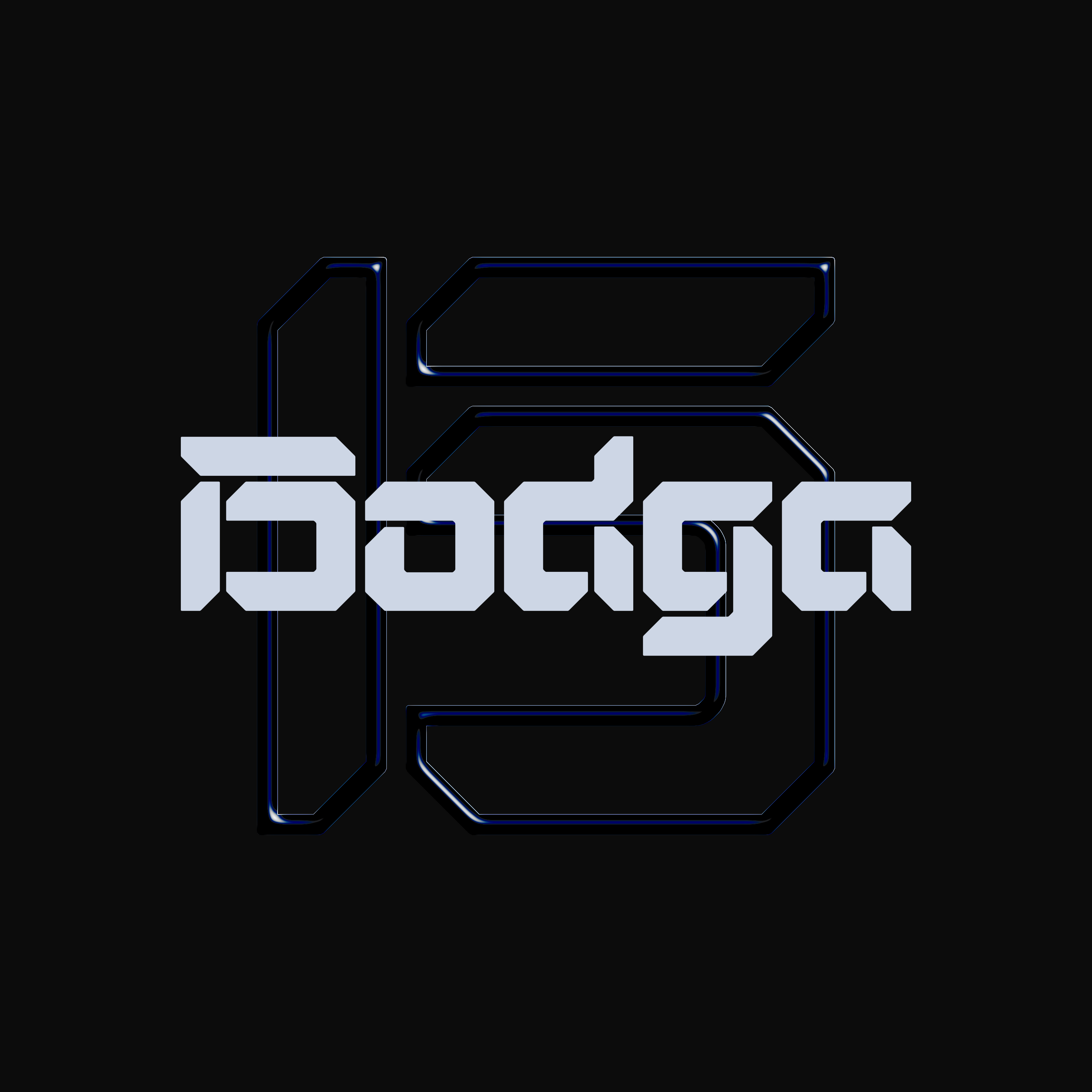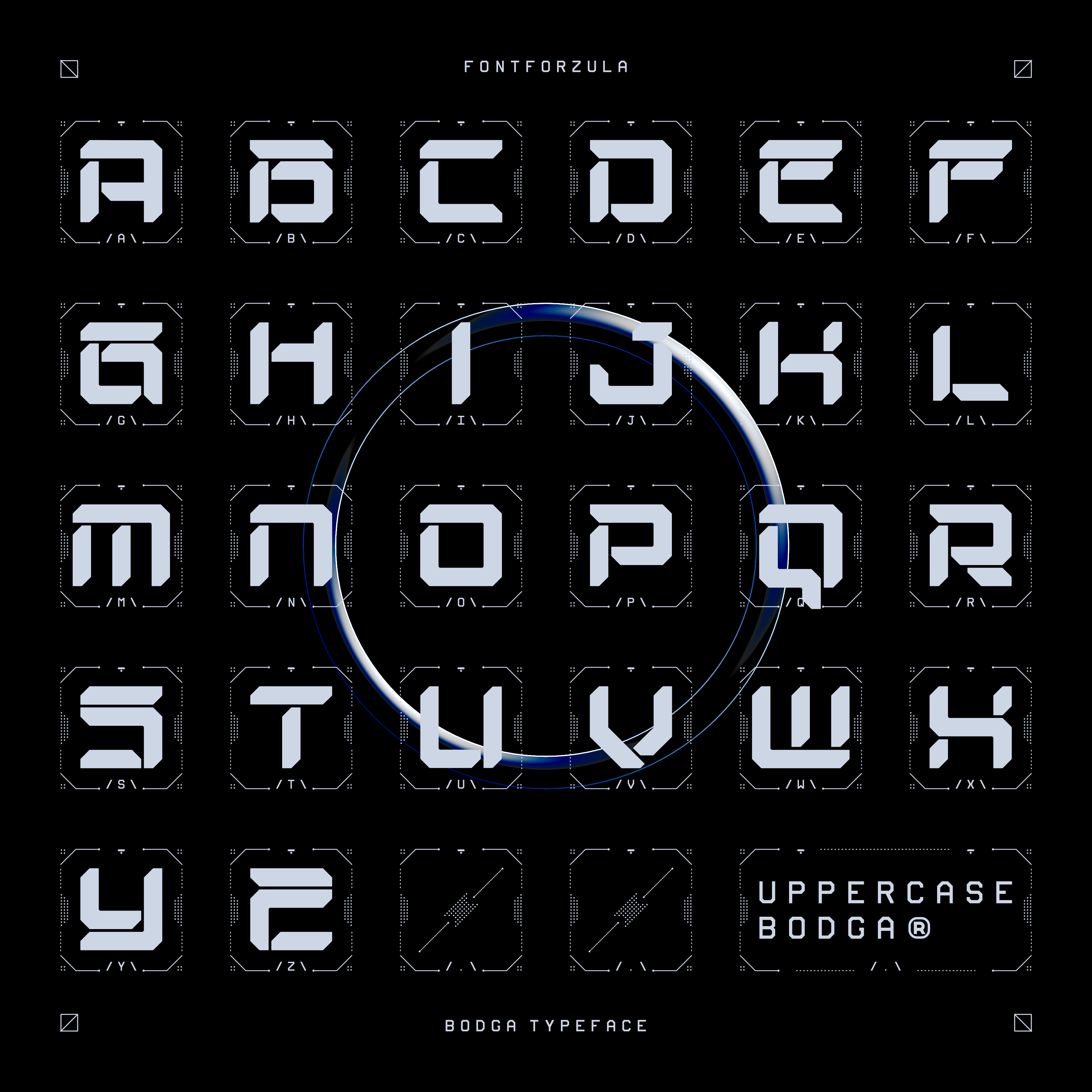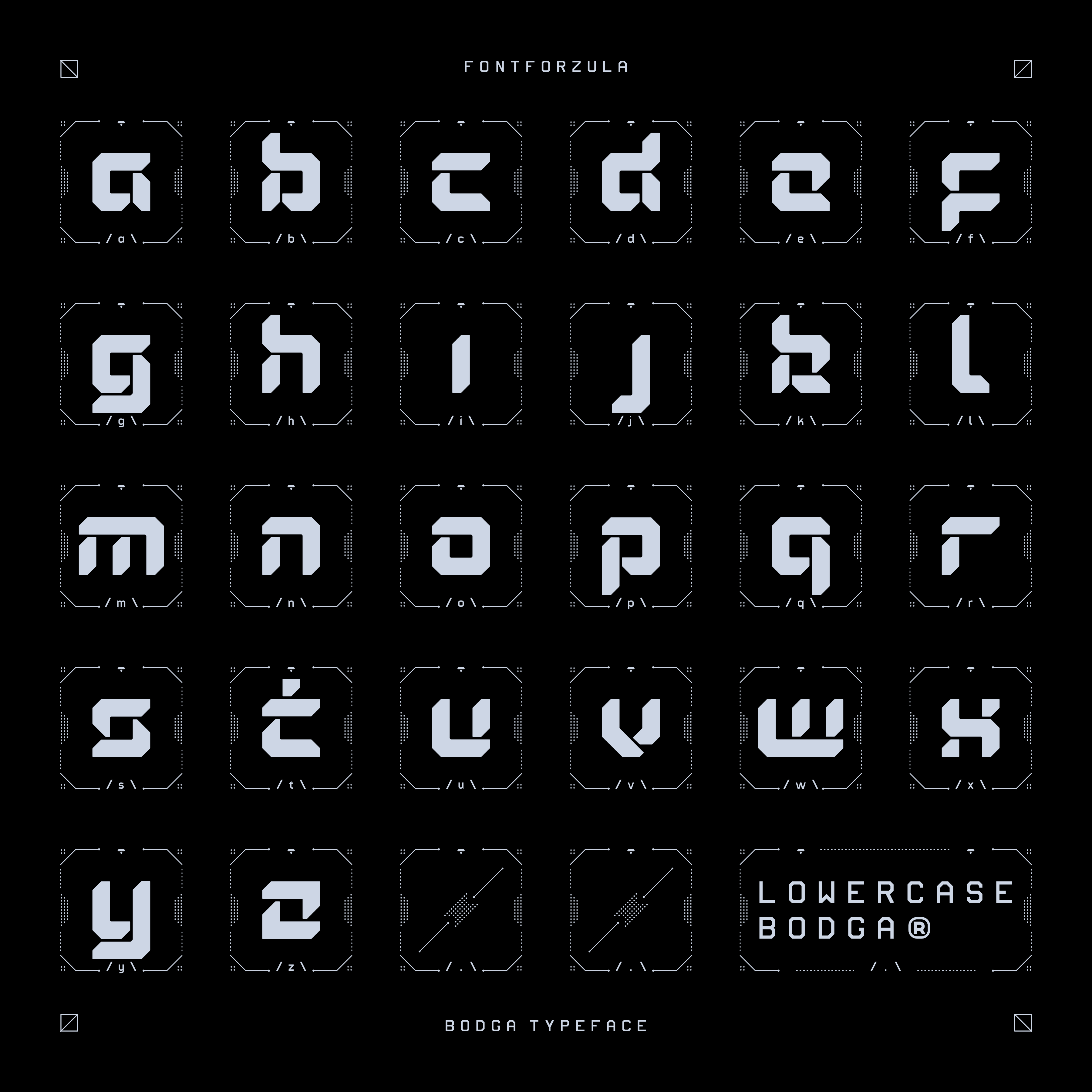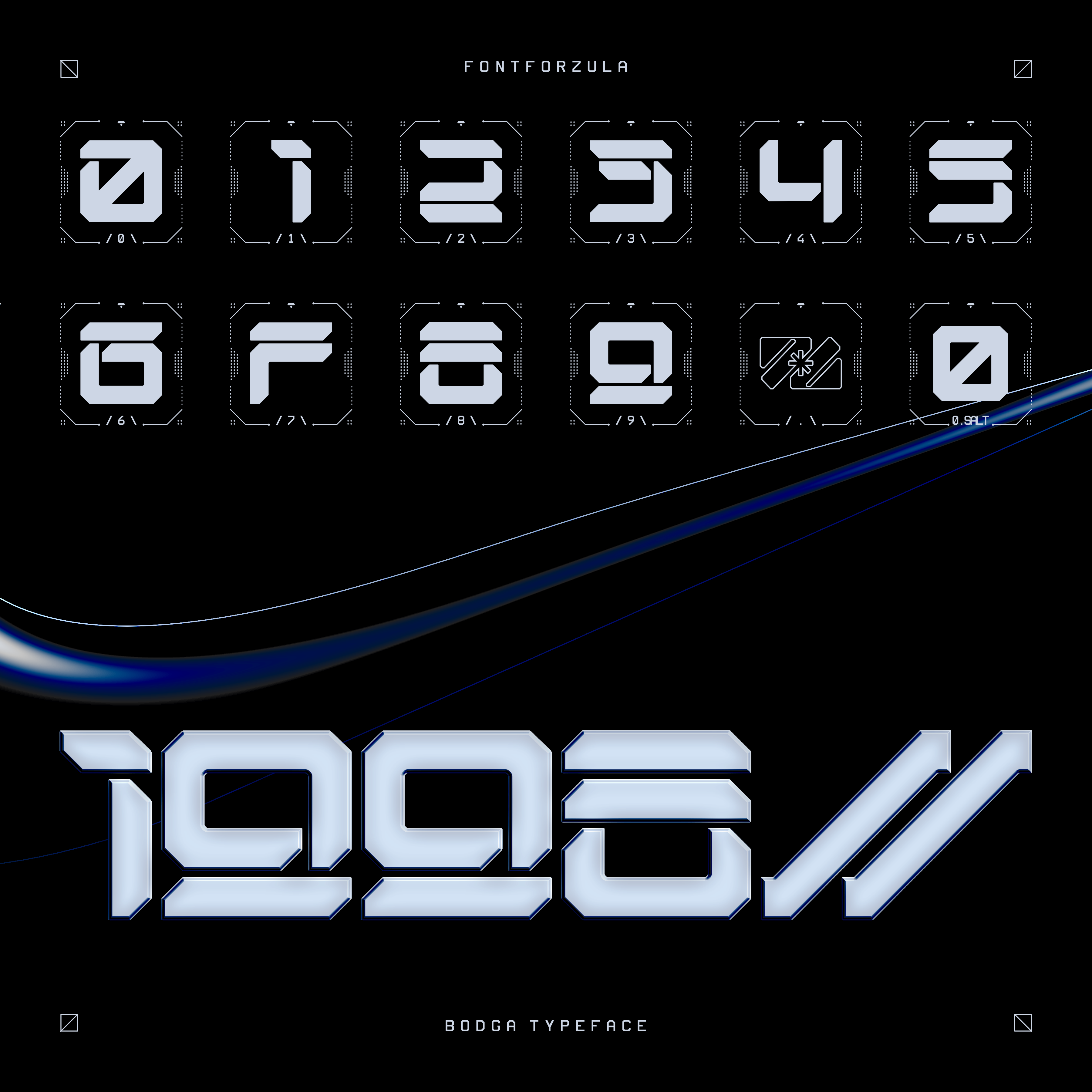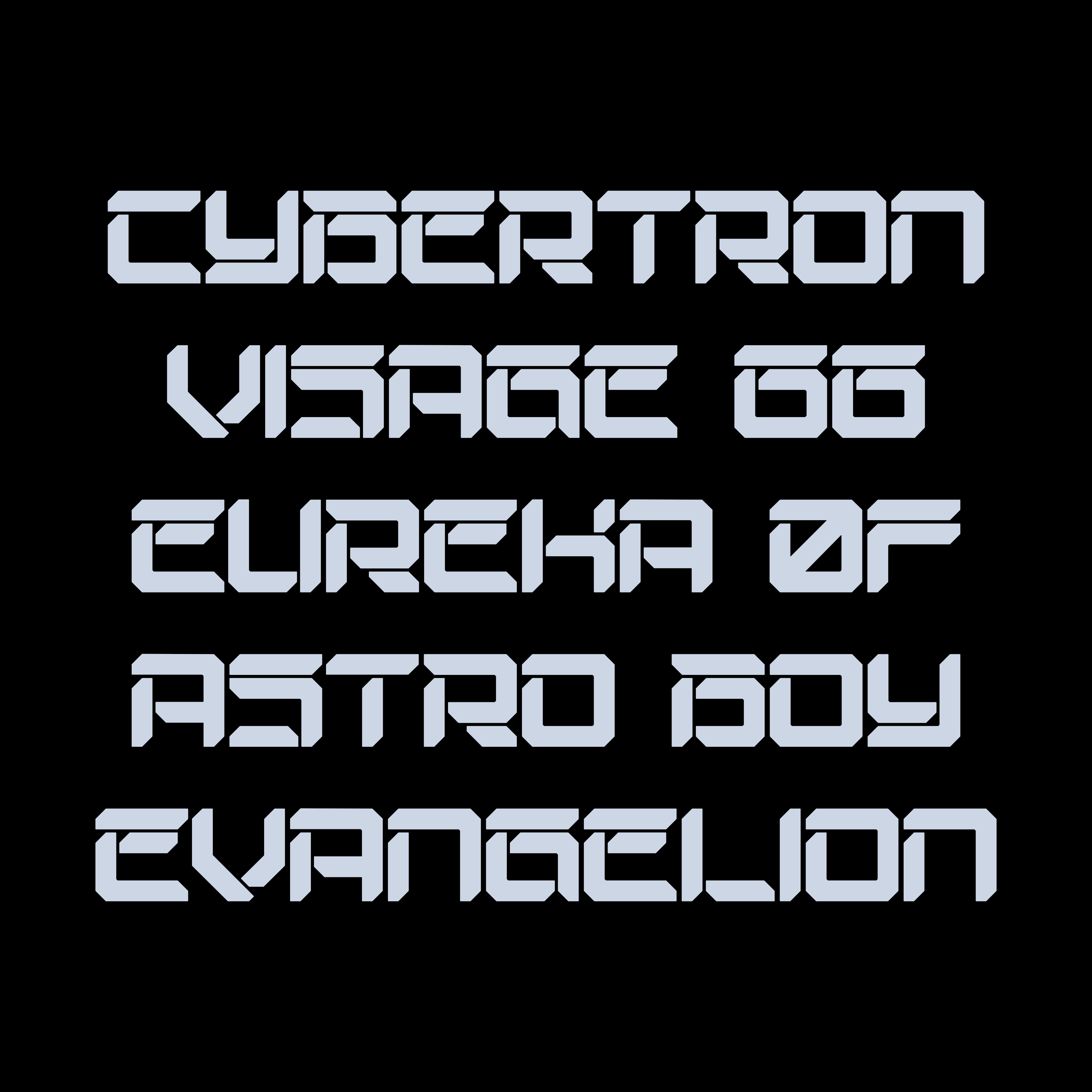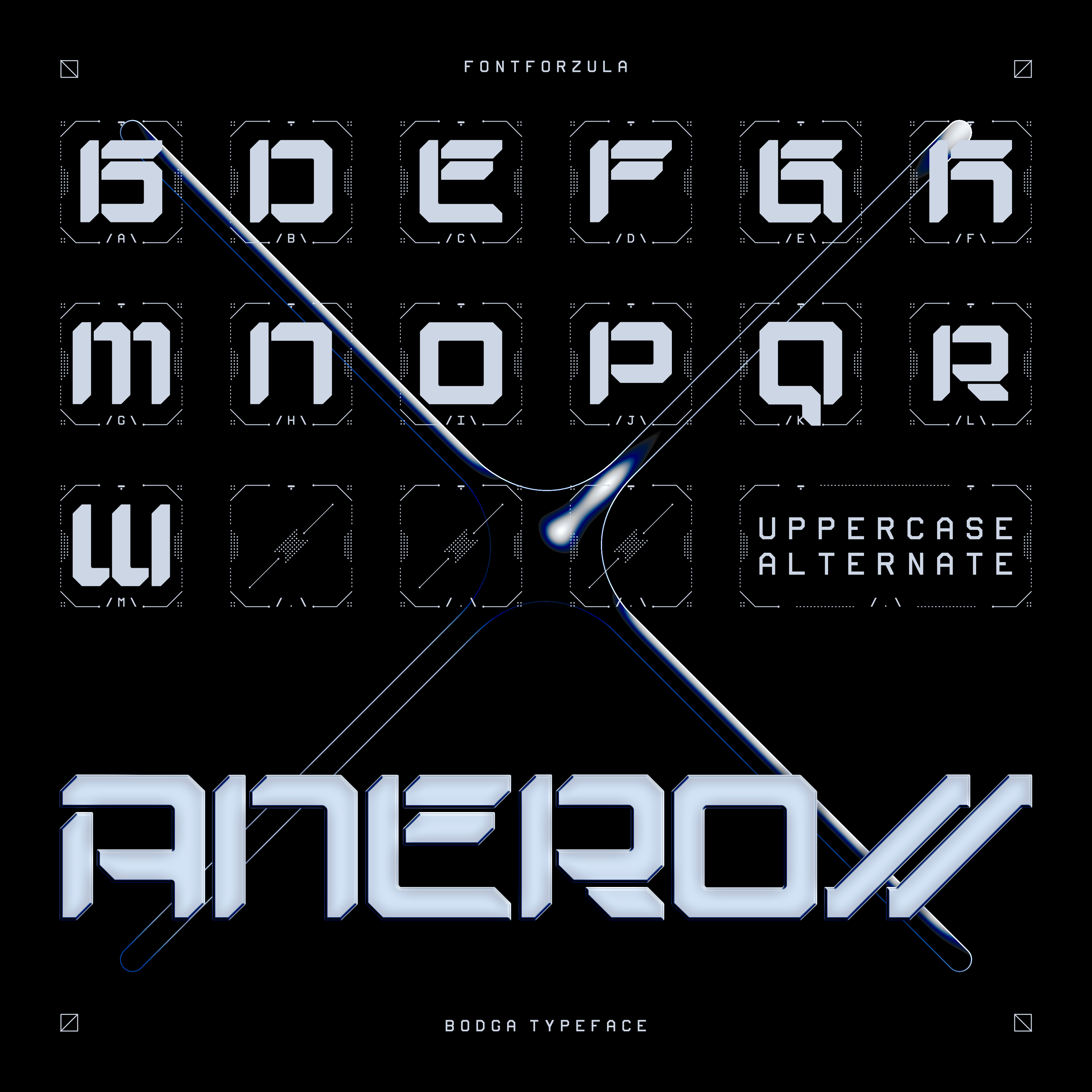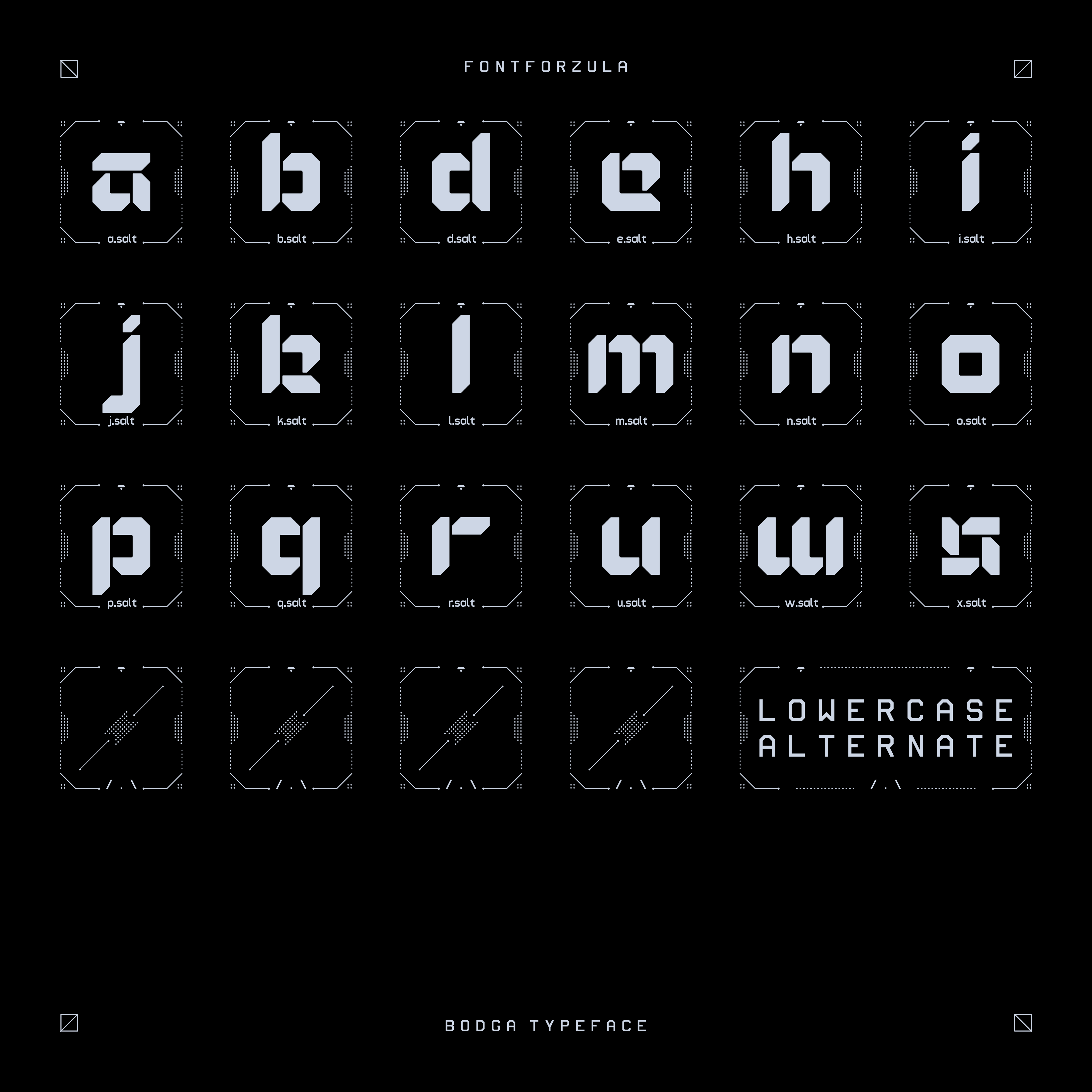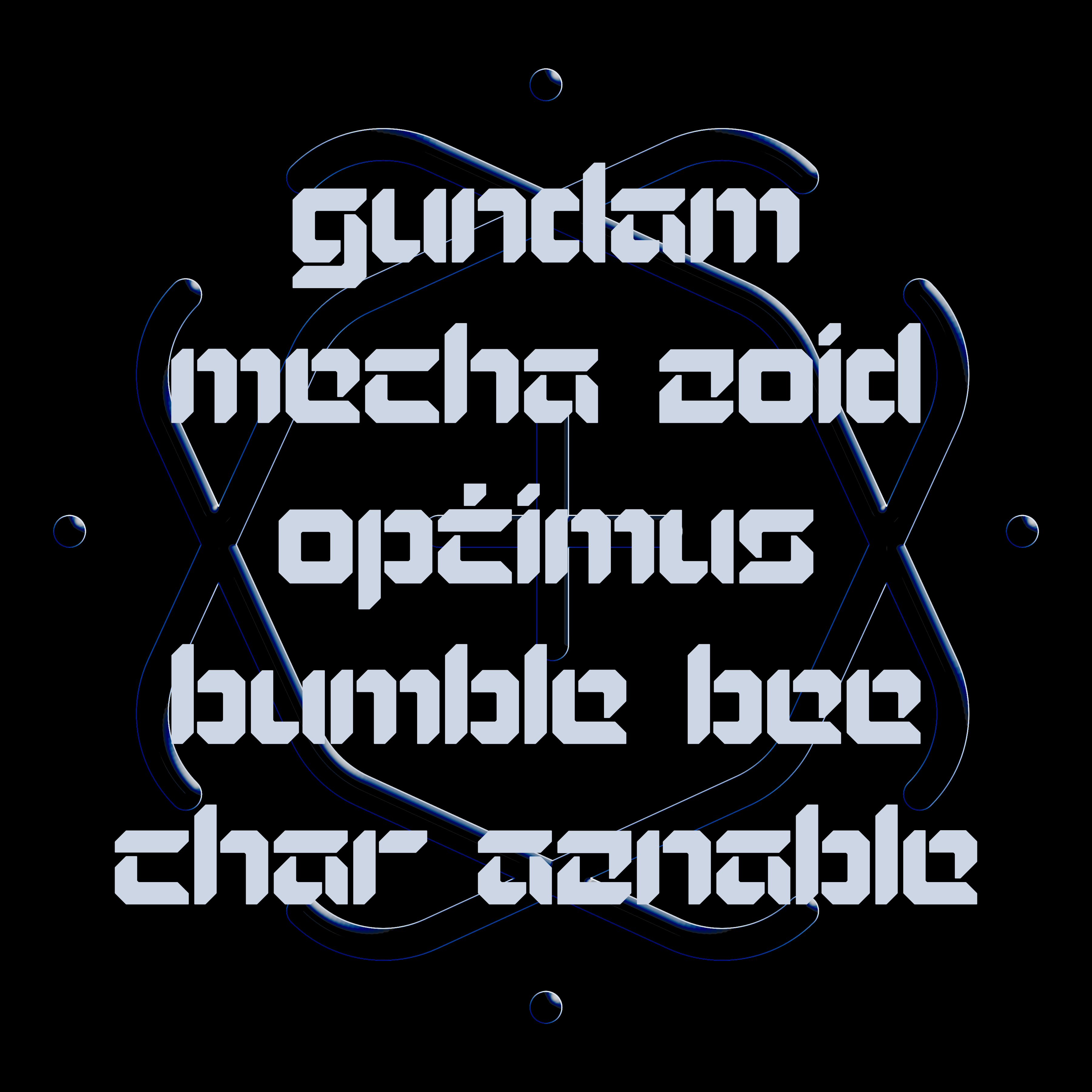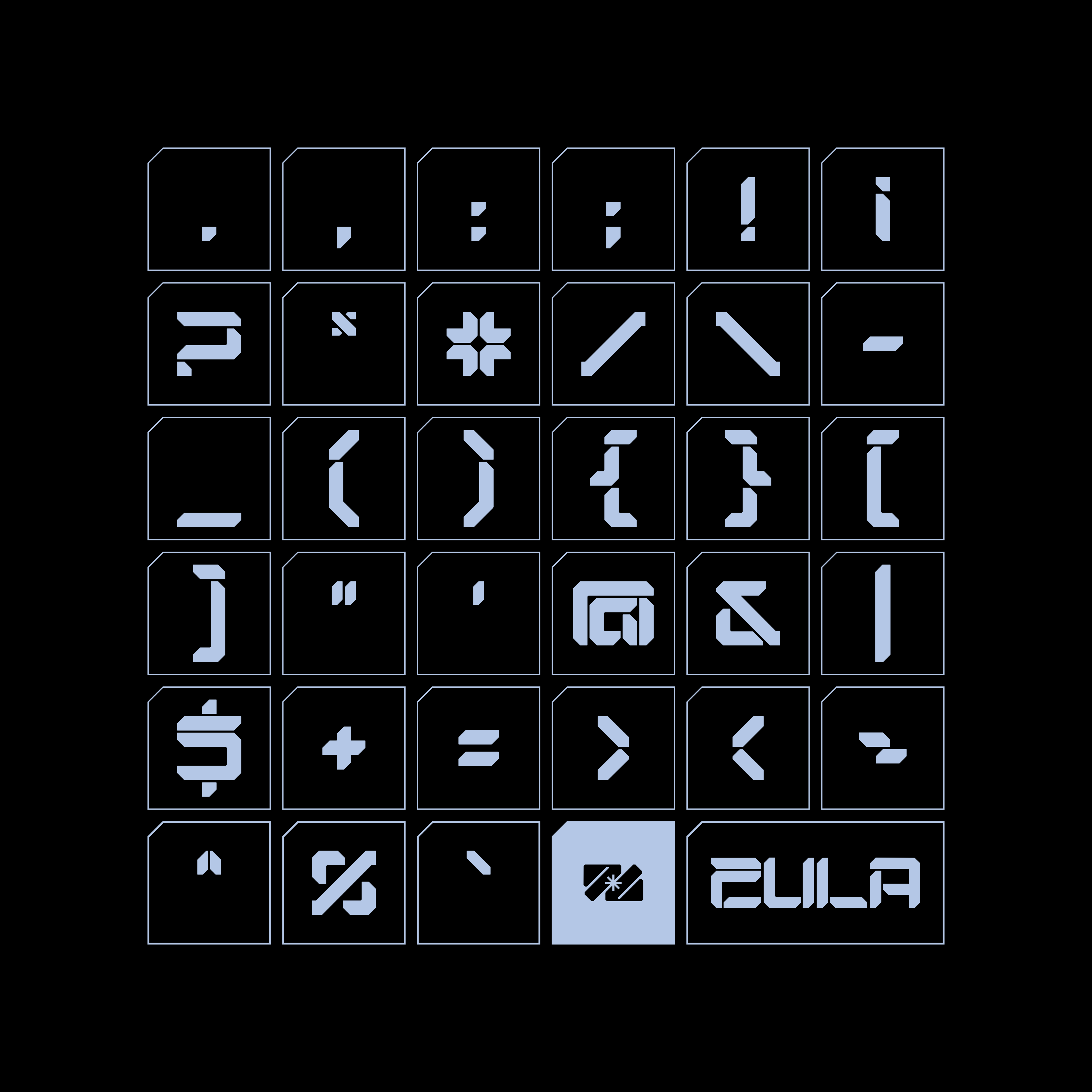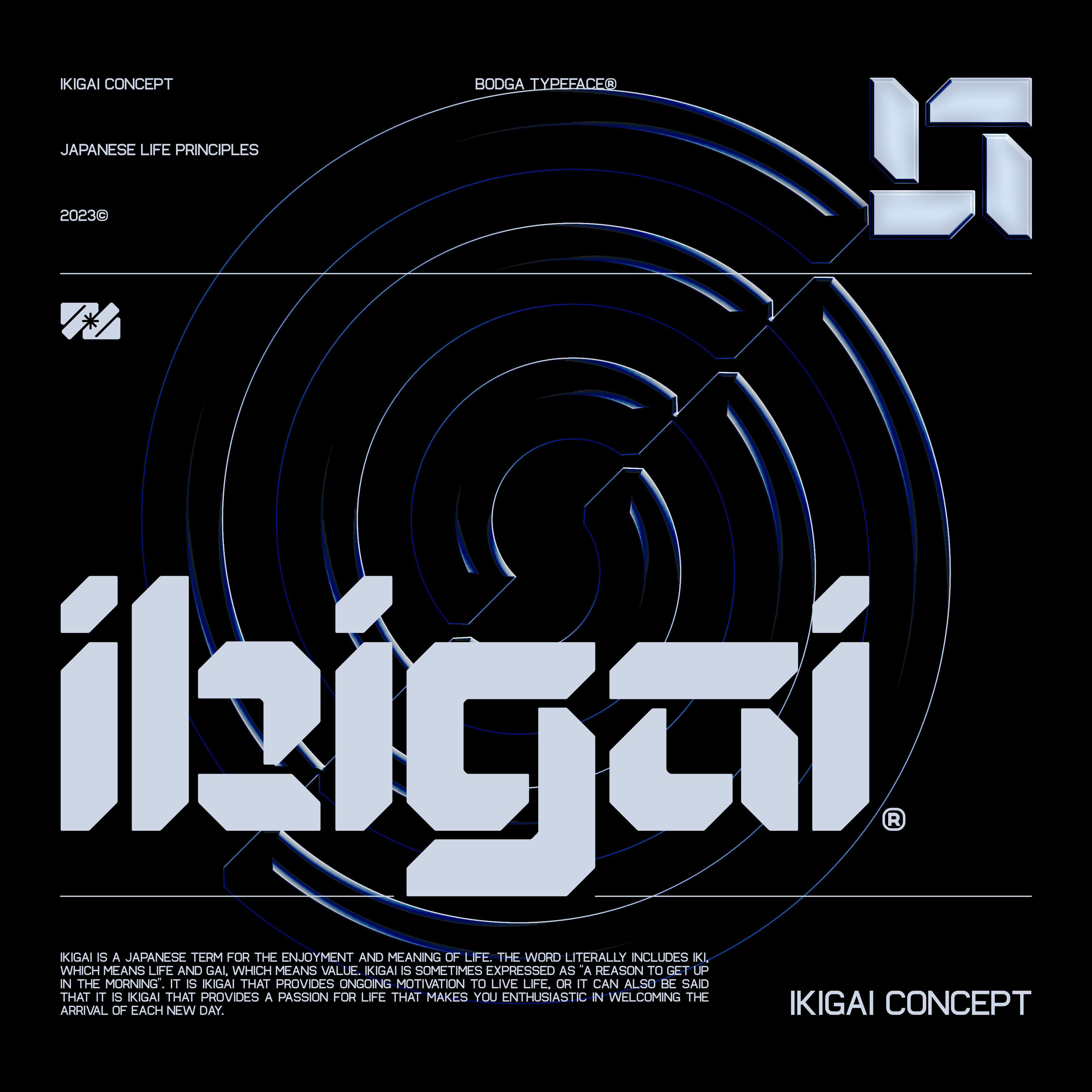
Bodga Typeface
Bodga Is Futuristic Typeface That Perfect For Apparel, Poster, Brand, Website And
Another Project That Need Futuristic Impression.
Bodga Typeface Includes :
- 26 Uppercase
- 26 Lowercase
- 13 Uppercase Alternates
- 18 Lowercase Alternates
- 10 Numeral
- 1 Numeral Alternates
- Punctuation